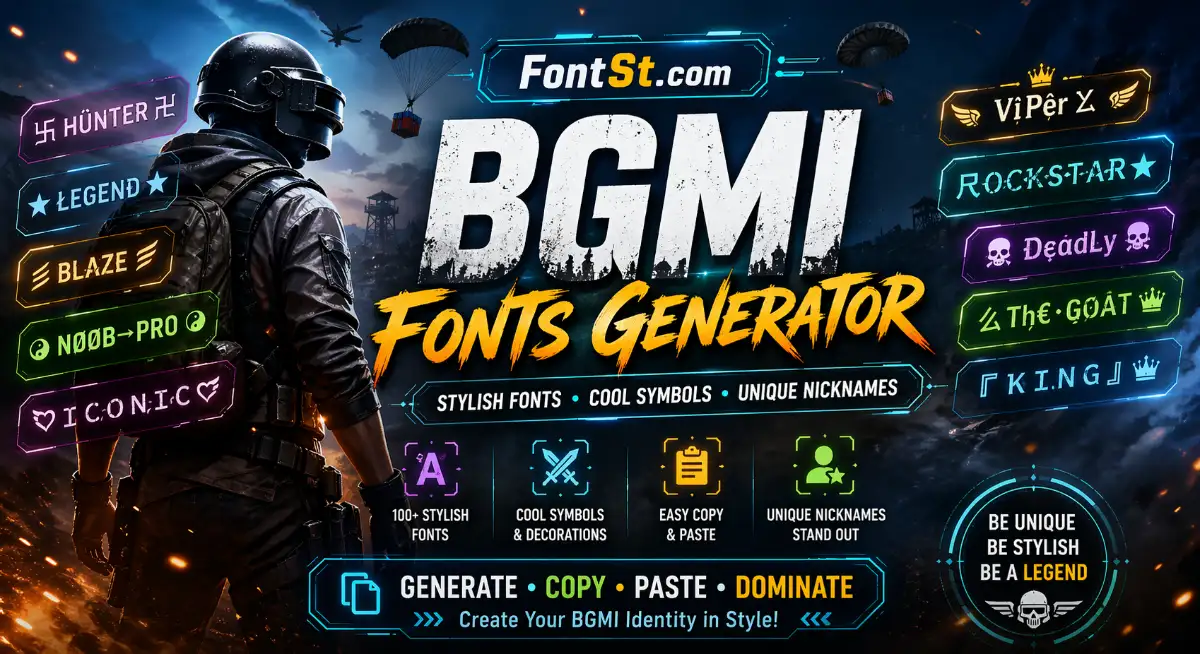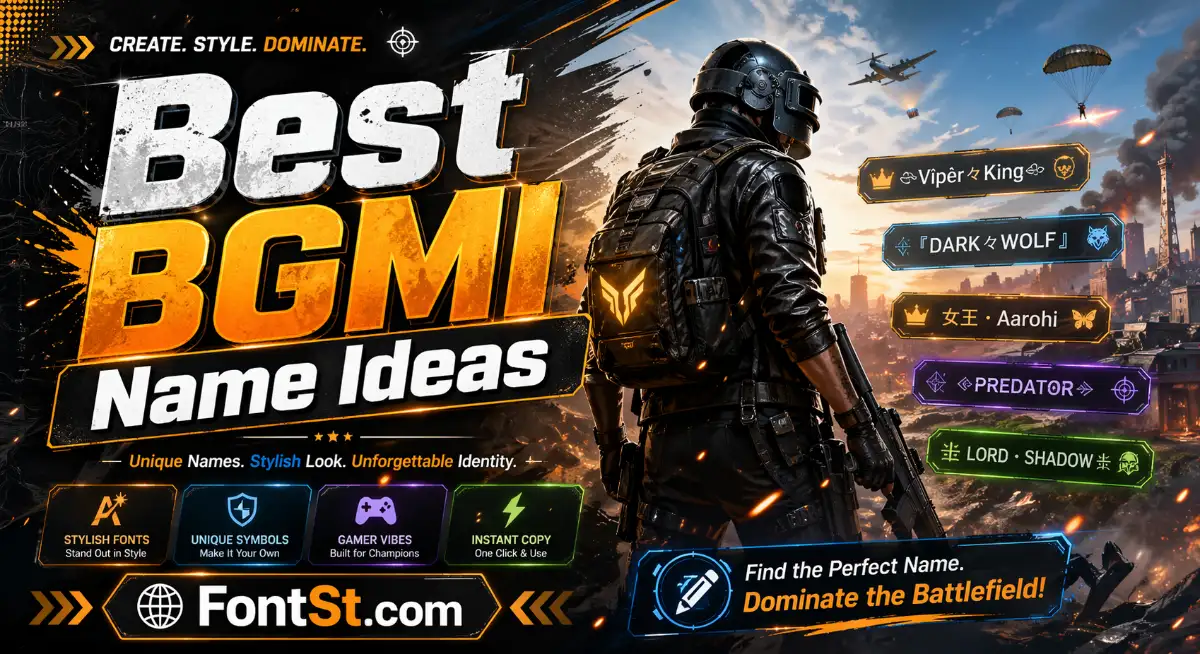
BGMI Font Generator – Stylish Text & Symbols Copy Paste
BGMI fonts let you turn plain text into stylish nicknames that look sharper, cooler, and more memorable in-game. With a BGMI fonts generator, you can create copy-and-paste text styles, add symbols, and build a name that fits your vibe without spending time editing each character by hand.
A good BGMI name font style should look unique, but it also needs to stay readable. Many players want a name that stands out in the lobby, team list, or profile, yet still looks clean enough to recognize quickly.
The most popular BGMI font style choices usually include:
Bold styles for strong and aggressive names
Italic or script styles for a smoother, more stylish look
Decorative styles for standout nicknames
Small caps and sharp fonts for modern gamer vibes
Minimal stylish text for players who want a cleaner result
When choosing a BGMI font style, it is usually better to:
keep the base name short
avoid too many heavy symbols
choose styles that still look good on mobile
test a few versions before picking one final name
For example, a plain name can look much better after a font change because the structure stays simple while the style becomes more eye-catching.
If you want a stylish font for BGMI, the goal is not only to make the name look fancy, but also to match your identity in the game. Some players prefer dark and sharp names, while others want a cool, elite, funny, or clean-looking profile.
A stylish BGMI font often works best when it matches one of these directions:
Pro player style short, bold, confident, easy to read
Cool and elite style modern letters with light decoration
Dark style stronger fonts with a serious tone
Cute or soft style smoother text with lighter symbols
Clan-ready style names that look balanced and work well next to tags
Instead of picking the most complicated result, it is usually smarter to choose a stylish font that gives you:
a clear shape
good spacing
strong visual impact
easy copy-and-paste use
That balance is what makes a BGMI name look polished rather than messy.
Many players do not want font styles alone. They also want BGMI font symbol copy and paste options to make names more personal. Symbols can help frame a nickname, add attitude, or make the final result look more complete.
Common symbol styles for BGMI names include:
stars
arrows
brackets
crowns
dots
lines
wings
lightning-style marks
A few examples of how symbols are often used:
adding symbols at both ends of a name
placing a small icon before the name
combining a clean font with only one light symbol
using separators to make short names look stronger
The best practice is simple:
use light symbols first
do not overload the name
keep the main word readable
choose symbols that match the font style
If your name already has a strong font, you usually need only a small symbol touch to finish it.
A font changer for BGMI is the easiest way to create stylish text without manually searching Unicode characters one by one. You enter your text, browse the generated styles, copy the one you like, and then paste it where supported.
The process is usually:
type your BGMI name
view multiple font results
pick the cleanest or coolest version
copy the result
paste it into your name field, profile, bio, or related text area
This is useful because it saves time and gives you many styles at once. Instead of guessing which characters work, a font changer helps you compare different looks quickly.
When using a BGMI font changer, keep these tips in mind:
start with a short base name
try both plain and symbol versions
keep a backup normal-text version
choose readable styles over overly crowded ones
A simple font changer is often the fastest way to build a BGMI nickname that feels custom and looks better than plain text.
BGMI fonts, stylish text, and copy-and-paste symbols are all about making your name feel more personal. The best result usually comes from a short base name, a readable font style, and a small number of matching symbols.
If you want a BGMI name that looks clean, stylish, and ready to use, start with a good font style first, then add symbols only where they improve the final look.